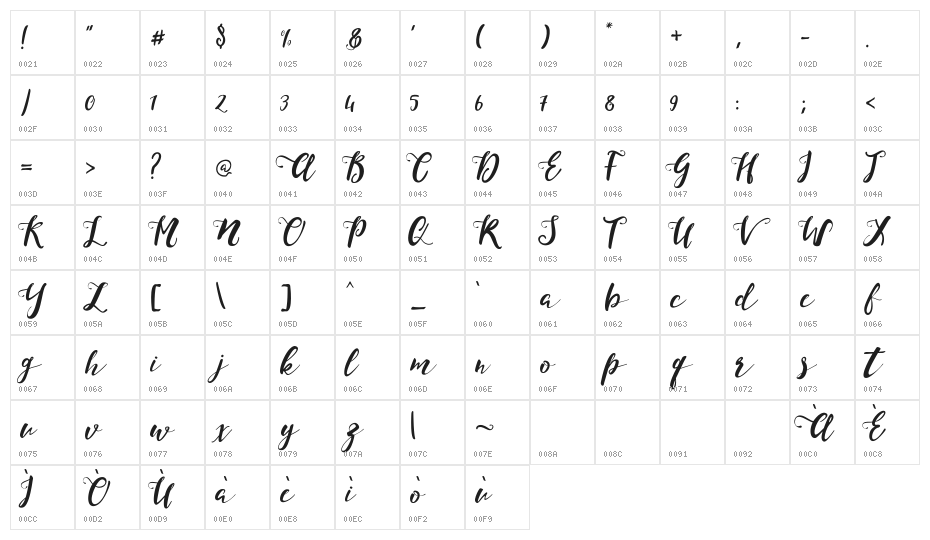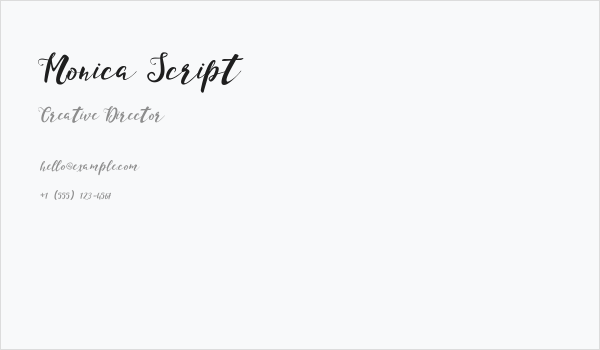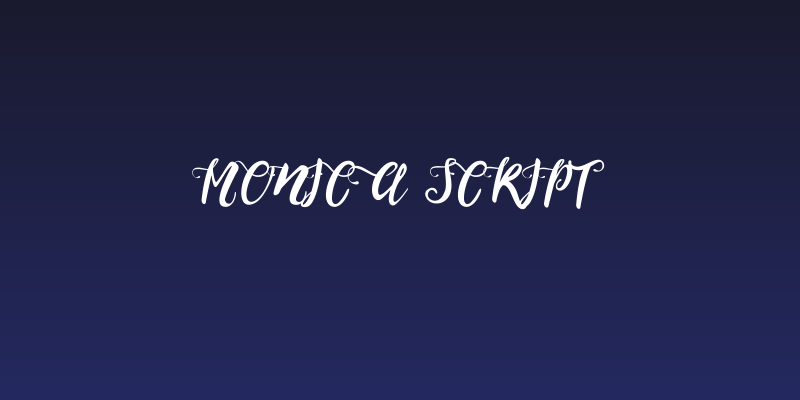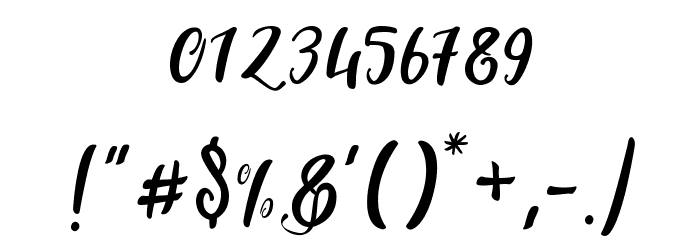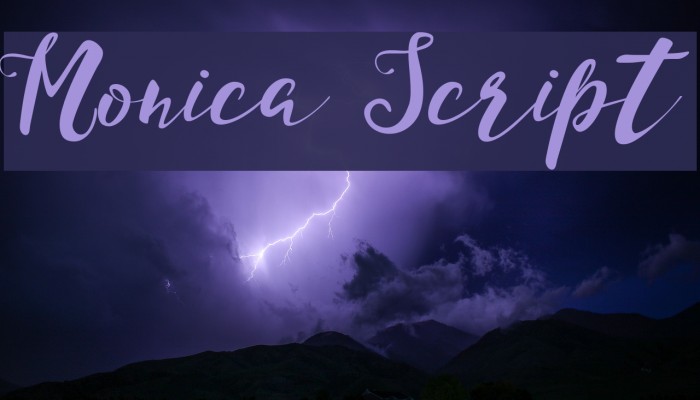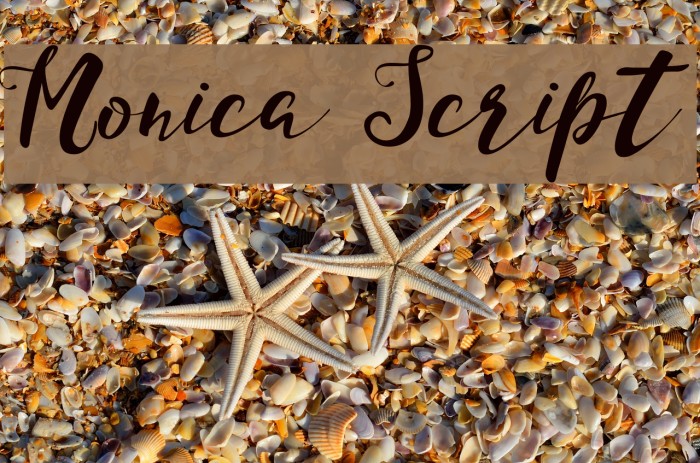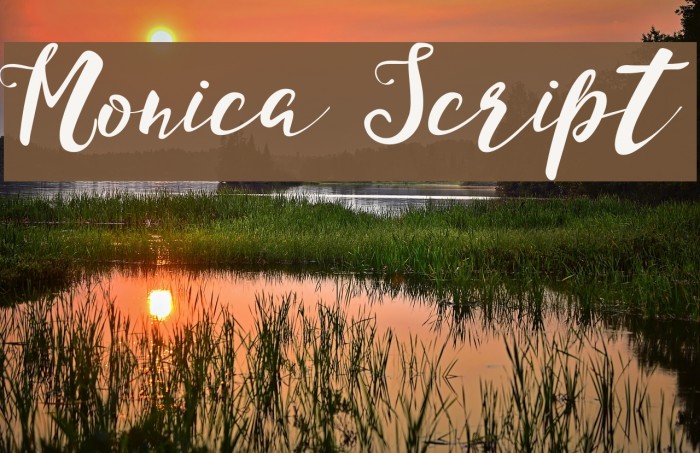
Monica Script Font
Monica Script Description
This script font exudes elegance and fluidity, characterized by its sweeping curves and intricate loops. The letters are interconnected, creating a seamless flow that mimics natural handwriting. It features a high contrast between thick and thin strokes, adding a dynamic and expressive quality. The uppercase letters are ornate, with decorative swashes that enhance their visual appeal. The lowercase letters maintain a consistent rhythm, contributing to the font's overall harmony. Numbers and special characters are designed with the same attention to detail, ensuring versatility across various applications.
Fonts by SiwoxS
| Use Case | Headlines, Invitations, Branding |
| Proposed Projects | Ideal for wedding invitations, elegant branding, greeting cards, and decorative headlines. |